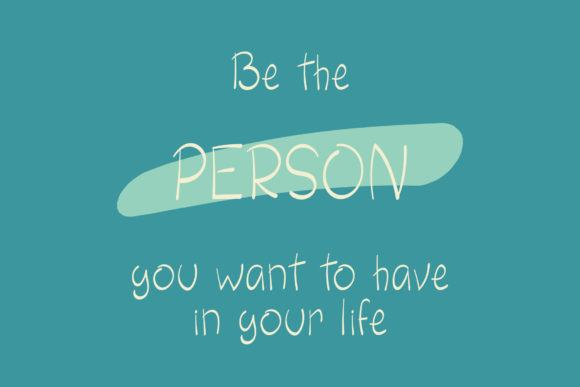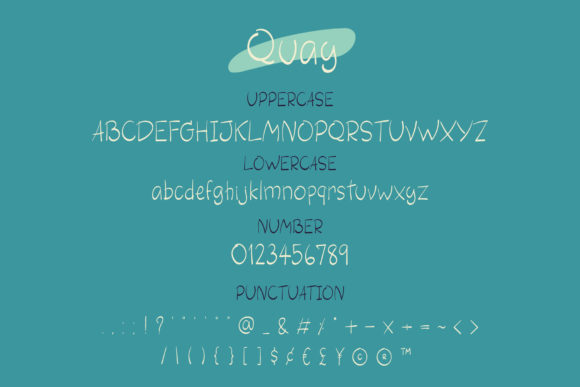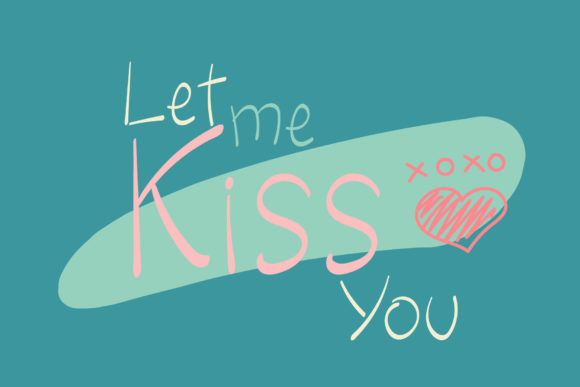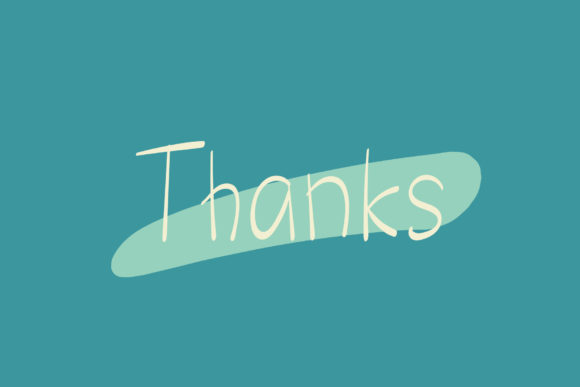
Introduction to Quay Font
Have you ever stumbled upon the perfect font that makes your creative project shine? For me, that moment happened when I discovered the Quay Font. Its charming, handwritten style instantly lifted my DIY project from ordinary to extraordinary. The Quay Font is a treasure trove for designers, offering a high-quality, free download that’s perfect for a wide range of creative endeavors, from Instagram captions to calligraphy scripts.
As a design resource, Quay Font stands out from the crowd with its friendly feel and versatility. Whether you’re working on a personal project or collaborating with clients, this font is sure to bring a touch of personality to your design. With its transparent background, you can easily layer it over images or use it as a standalone element in your creative project.
In this article, we’ll delve into the world of Quay Font, exploring its features, uses, and why it’s become a favorite among designers.
Key Features of Quay Font
- Features a transparent background, allowing for seamless integration into designs
- Designed with precision and attention to detail for a professional look
- Includes a range of characters, including uppercase and lowercase letters, numbers, and punctuation
Honest Review: Quay Font
I recently had the chance to work with Quay Font, and I must say it’s been a game-changer for my creative projects. This high-quality font has quickly become a staple in my design resource library.
- The font is incredibly versatile, suitable for a wide range of creative projects, from logos to digital displays.
- One of my favorite features is the transparent background, which allows for seamless integration with any design element.
- While the font is high-quality, it may not be suitable for every design project, particularly those with a more minimalist aesthetic.
Overall, I’m thoroughly impressed with Quay Font. Its unique style and high-quality design make it a valuable addition to any design resource library. Whether you’re working on a logo, branding, or digital display, Quay Font is definitely worth considering for your next creative project. ✨
Tips for Getting the Most Out of Quay Font
To get the most out of Quay Font, experiment with different font sizes, colors, and combinations. You can also use Quay Font in conjunction with other design elements, such as images and graphics, to create a cohesive and eye-catching design.
Common Use Cases for Quay Font
Quay Font is perfect for a wide range of creative projects, including social media graphics, presentations, documents, and more. Its high-quality design and transparent background make it a valuable resource for designers and non-designers alike.
Comparison to Quay Font: Great Vibes Font is more elegant and refined, while Quay Font is more modern and edgy. Great Vibes Font is suitable for a more traditional or vintage aesthetic, whereas Quay Font is better suited for contemporary designs.
Can I customize Quay Font to fit my design needs?
Yes, Quay Font is designed to be highly customizable. Its transparent background and clean design make it easy to use with different colors, backgrounds, and design elements. You can also use font editing software to customize the font’s weight, style, and other attributes to fit your specific design needs.